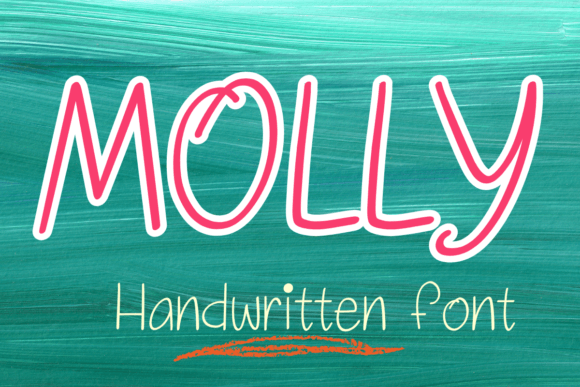
Feast your eyes on Molly Font, the ultimate handwritten font that exudes charm and uniqueness. Let your designs radiate with an enchanting touch that beckons attention and leaves an indelible mark. Molly Font is not just a font; it's an expression of your individuality, a canvas to paint your imagination.
Indulge in the versatility of Molly Font, seamlessly adaptable to an array of projects. Whether you're crafting an elegant reference letter, designing an eye-catching poster, or creating personalized greeting cards, Molly Font will effortlessly elevate your work. Its timeless style transcends trends, ensuring that your designs remain captivating for years to come.
With Molly Font, you'll find endless opportunities to infuse your designs with a touch of whimsy and creativity. Let your imagination soar as you create stunning Easter decorations, design vibrant back-to-school posters, or craft heartfelt wedding invitations. Molly Font's magic extends to party decorations, social media posts, and even stylish clothing designs.
Step into a world where your designs come alive with Molly Font. Its carefully crafted characters add a personal touch to your projects, making them stand out from the ordinary. Experience the joy of creating designs that resonate with your audience, leaving a lasting impression that speaks volumes about your creativity and attention to detail.
Unlock the endless possibilities of Molly Font today and embark on a journey of creative expression. Let your designs tell captivating stories, convey heartfelt messages, and leave an imprint on the hearts of those who encounter them. Molly Font is more than just a font; it's a gateway to a world where your imagination knows no bounds. Embrace the allure of Molly Font and transform your designs into masterpieces that inspire and enchant.